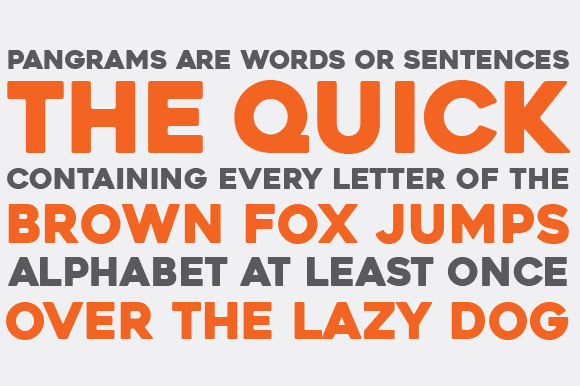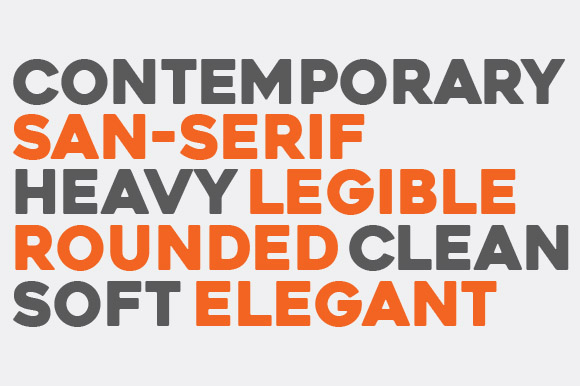
Introducing Heavitas Font: A Modern, Bold, and Elegant Sans Serif
In the world of typography, a good font can make all the difference in the success of a design project. For designers and crafters looking for a modern, bold, and elegant sans serif font, Heavitas is an excellent choice. Created by talented font designer Deepak Dogra, Heavitas is an expressive font that offers exceptional legibility and versatility, making it suitable for a wide range of projects.
What is Heavitas Font?
Heavitas is a carefully crafted sans serif font that exudes a sense of modernity, boldness, and elegance. Its clean lines, precise curves, and balanced proportions make it a standout in the world of typography. Heavitas is designed to be highly legible, even at smaller font sizes, ensuring that your message is conveyed clearly and effectively.
Key Features of Heavitas Font
- Modern and Bold: Heavitas boasts a contemporary design with bold strokes, making it perfect for headlines, titles, and emphasis.
- Elegant and Refined: The font’s elegant curves and refined features add a touch of sophistication to any design.
- Highly Legible: Heavitas is optimized for readability, making it suitable for body text, captions, and other small text applications.
- Versatile: This font works well across various design projects, including branding, advertising, packaging, and digital media.
Who is Heavitas Font Suitable For?
Heavitas is an excellent choice for a variety of designers and crafters, including:
- Graphic Designers: Looking for a modern and bold font for branding, logos, and advertising materials.
- Digital Designers: Creating user interfaces, websites, and mobile apps that require a clean and elegant typography.
- Crafters and Makers: Seeking a versatile font for crafting, scrapbooking, and other DIY projects.
- Marketing and Advertising Professionals: Needing a font that can effectively communicate a message and grab attention.
How to Use Heavitas Font
Heavitas can be used in a variety of design applications, including:
- Branding and Logos: Create a bold and memorable brand identity with Heavitas.
- Headlines and Titles: Use Heavitas to create attention-grabbing headlines and titles that make a statement.
- Body Text: Heavitas is also suitable for body text, providing a clean and readable format for conveying information.
- Digital Media: Use Heavitas in digital media, such as social media graphics, videos, and presentations.
Why Choose Heavitas Font?
With so many fonts available, why choose Heavitas? Here are a few compelling reasons:
- Unique Design: Heavitas offers a distinctive design that sets it apart from other sans serif fonts.
- High-Quality: The font is crafted with precision and attention to detail, ensuring a high-quality design.
In conclusion, Heavitas font is an exceptional choice for designers and crafters seeking a modern, bold, and elegant sans serif font. Its unique design, high legibility, and versatility make it suitable for a wide range of projects. With Heavitas, you can create stunning designs that effectively communicate your message and leave a lasting impression.